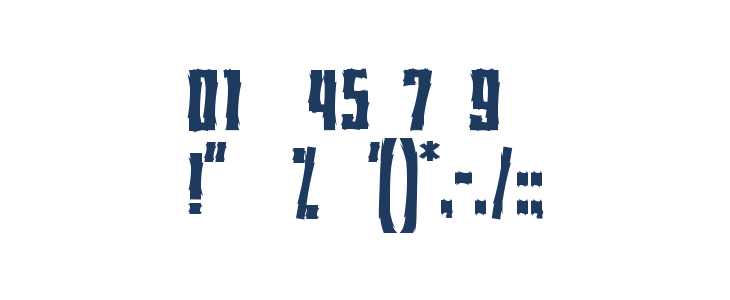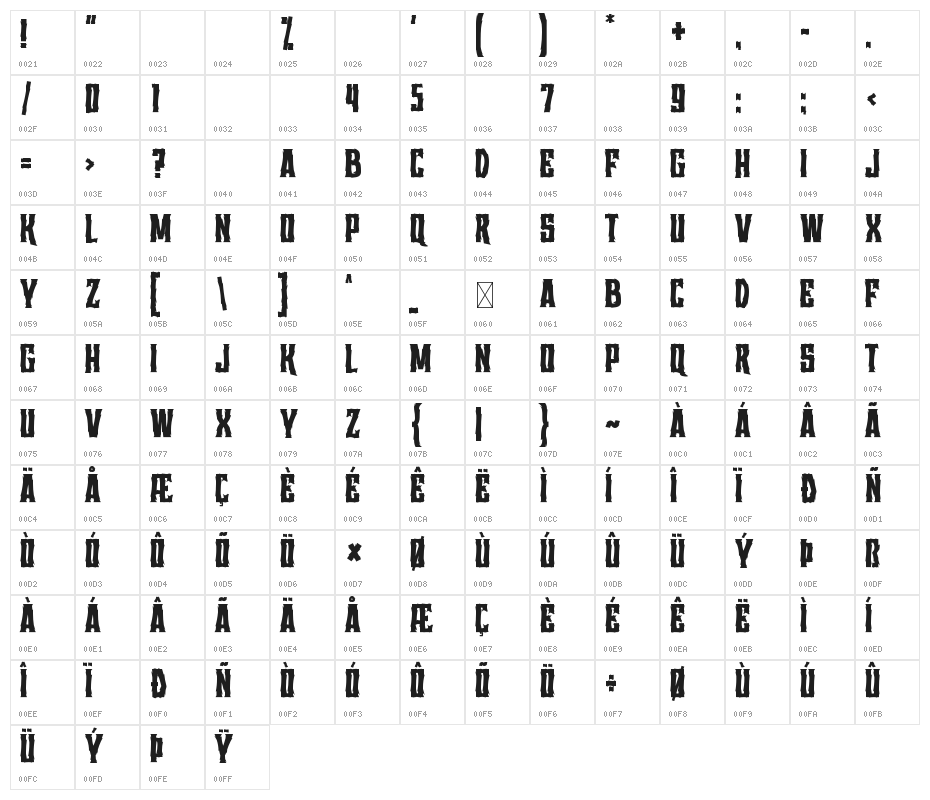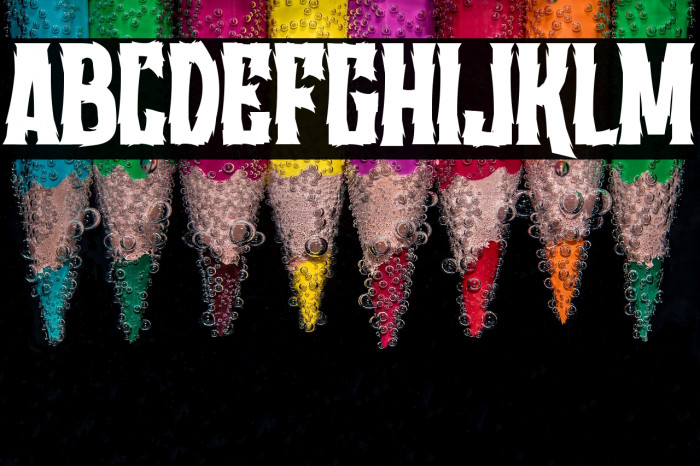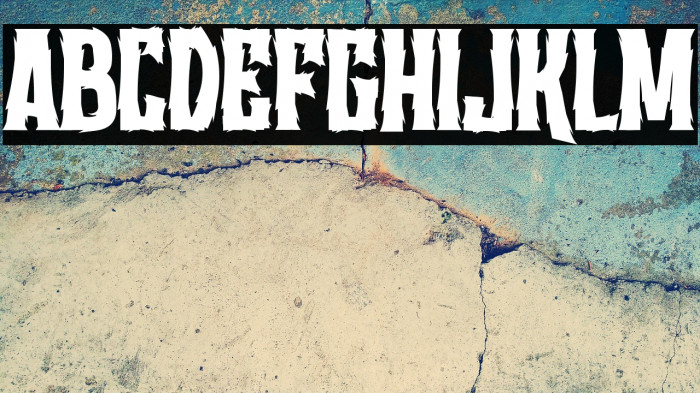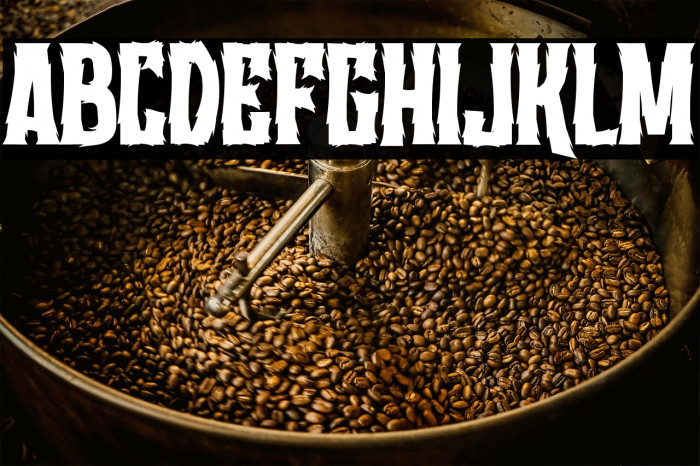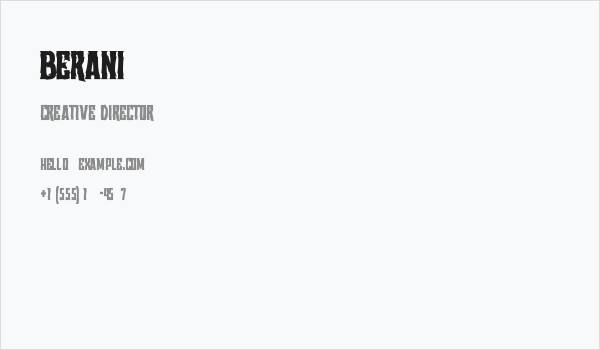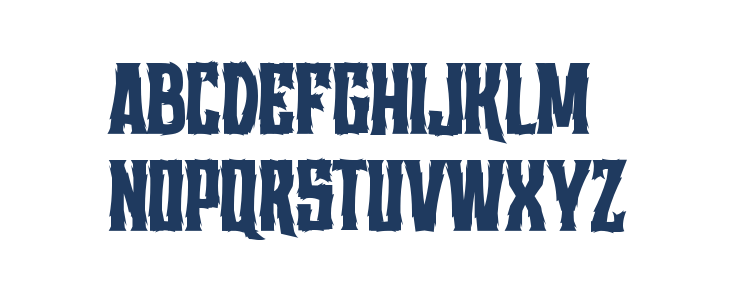
Berani Font
Berani Description
This font features a bold and jagged style, reminiscent of torn paper or rough edges. The characters are highly stylized with sharp angles and irregular shapes, giving it a dynamic and aggressive appearance. The uppercase and lowercase letters maintain a consistent design, with the uppercase being more pronounced. Numbers and special characters follow the same rugged aesthetic, making the font suitable for attention-grabbing designs. Its unique style is ideal for projects that require a bold statement or an edgy look.
| Proposed Projects | Ideal for posters, album covers, video game titles, or any project needing a bold, edgy look. |